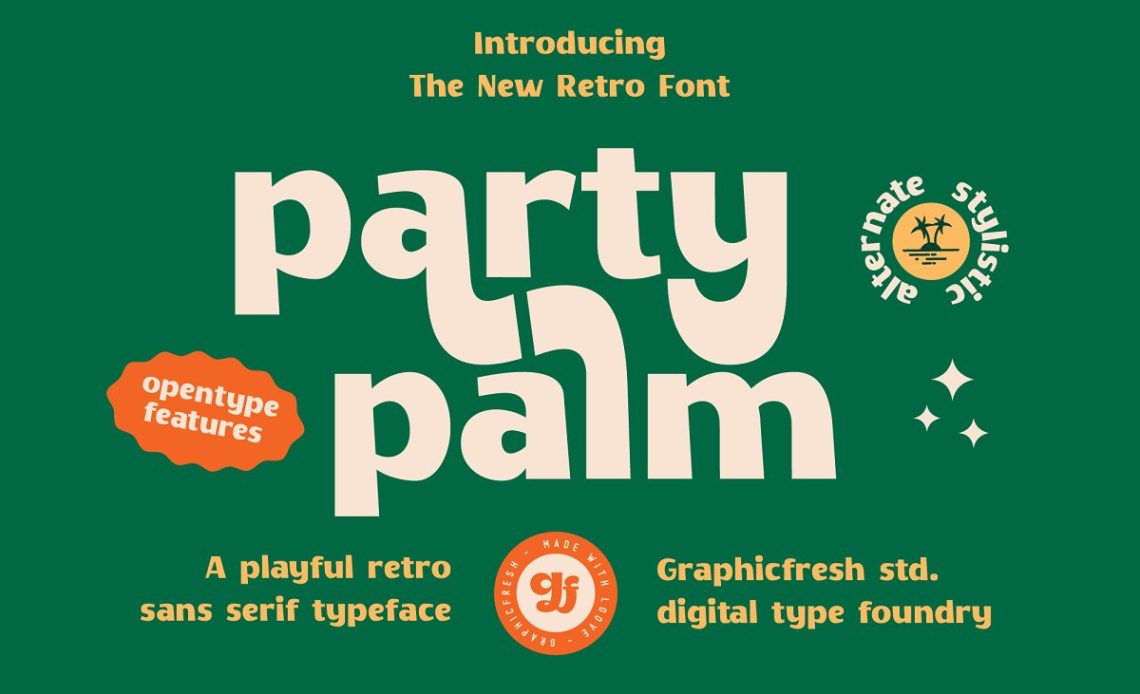
Introducing Party Palm Retro Font, the ultimate choice for vintage design enthusiasts! Immerse yourself in the nostalgia of the 80s and 90s with this captivating font created by the talented Muhammad Husni Haikal.
Our font exudes a classic charm while maintaining a modern and elegant touch, making it perfect for various design projects. Whether you're creating retro posters, vintage logos, or stylish invitations, Party Palm Retro Font will elevate your designs to a whole new level.
Unlock the endless possibilities of Party Palm Retro Font today and let your creativity flourish. Transport your audience back in time with its nostalgic appeal and make a lasting impression. Embrace the power of vintage design and transform your projects into timeless masterpieces.